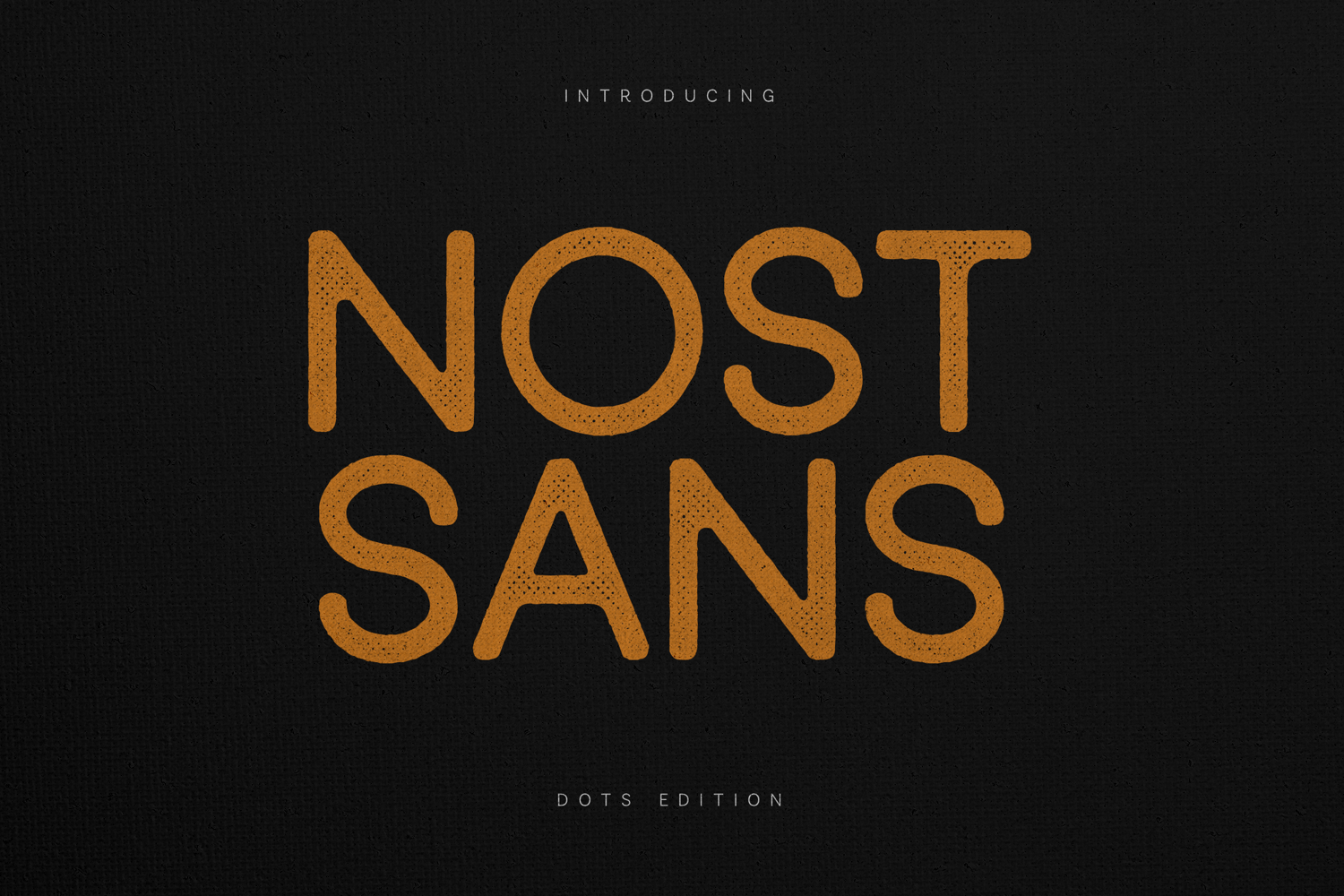
Nost Sans Textured Modern Sans Serif Font
Nost Sans is a modern sans serif typeface designed with a clean geometric structure and a subtle textured surface that adds warmth and visual character to contemporary typography.
The font blends minimalist construction with a lightly distressed grain texture, giving the letterforms a refined yet organic appearance. This balance allows the typeface to remain modern and structured while introducing a tactile visual quality that enhances large display typography.
The shapes are built using rounded geometry, smooth curves, and balanced proportions, resulting in a typeface that feels approachable, contemporary, and visually stable across different typographic compositions.
The textured finish introduces a soft irregularity that gives the letters depth without sacrificing clarity. This makes Nost Sans particularly effective in headline typography and graphic compositions where clean structure and subtle character are both important.
The typeface works well in projects such as:
• modern branding systems
• editorial typography layouts
• poster design
• visual identity typography
• contemporary graphic design
• digital layouts
• packaging design
• headline compositions
Nost Sans includes uppercase letters, lowercase letters, numbers, punctuation, symbols, and extended multilingual language support, allowing it to function across a wide range of international typography projects.
With its combination of modern structure and subtle texture, Nost Sans provides a versatile sans serif typeface that brings contemporary clarity and character to modern typographic design.